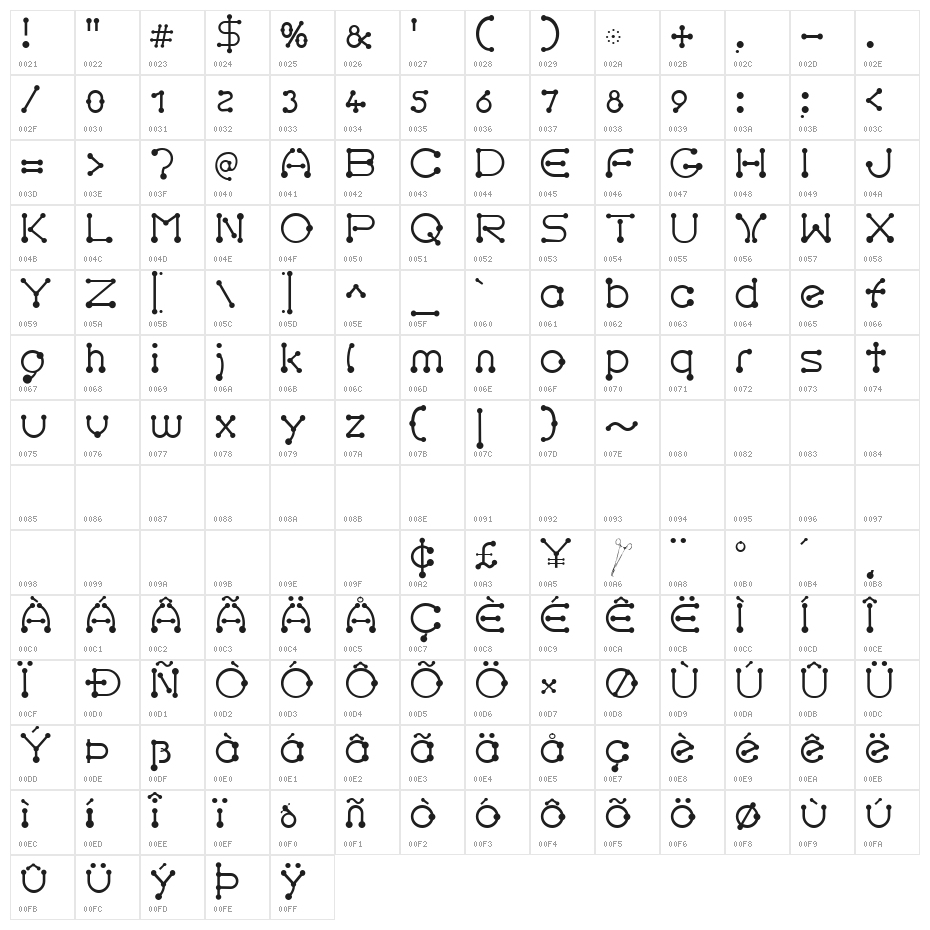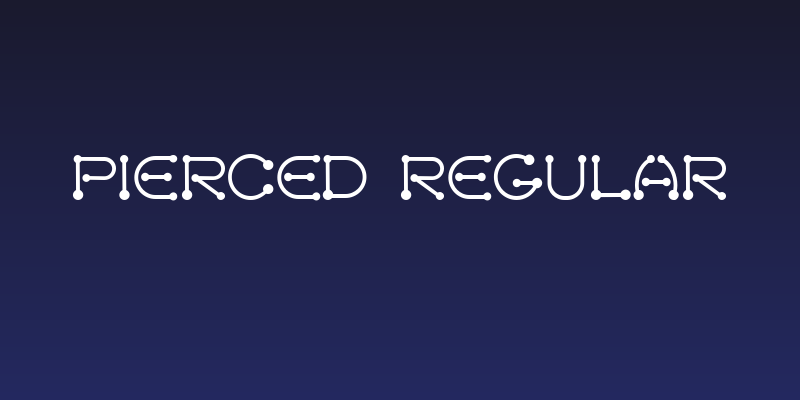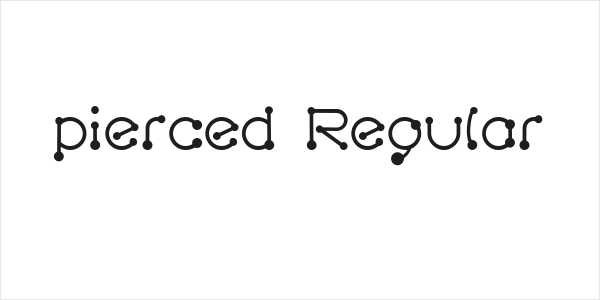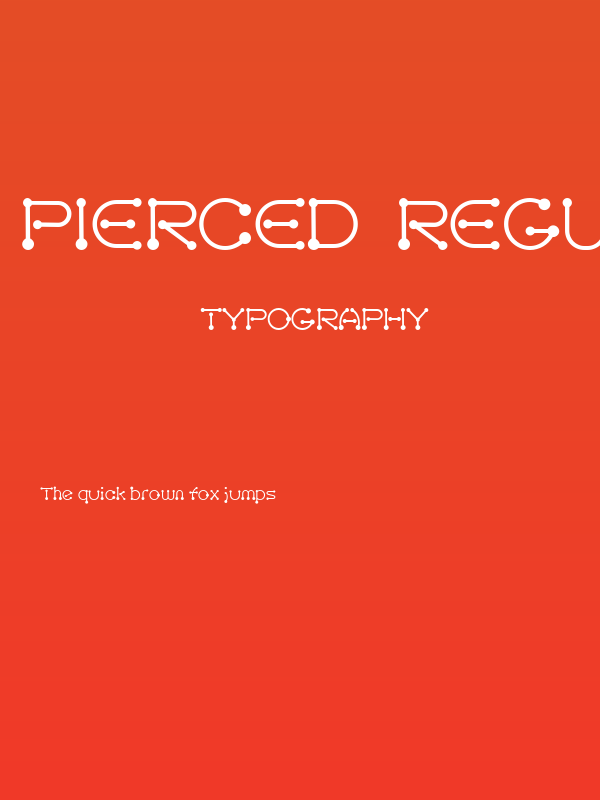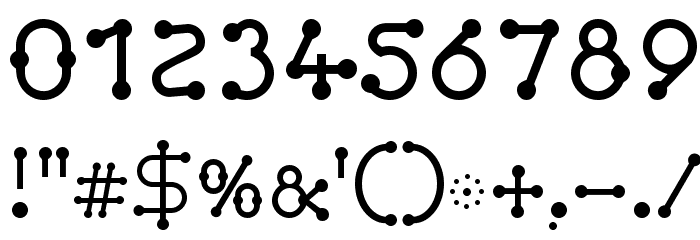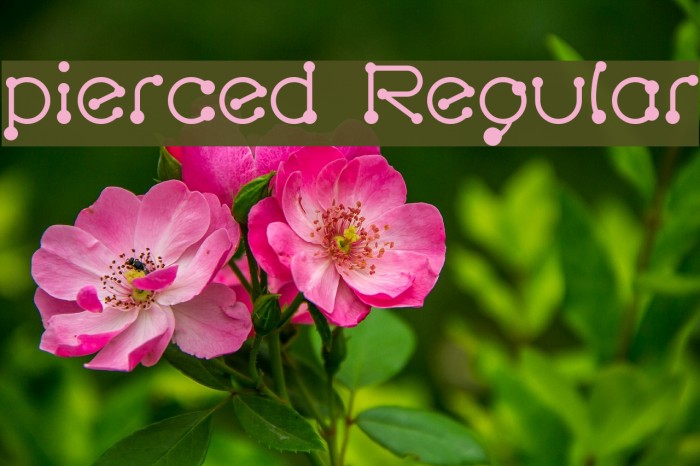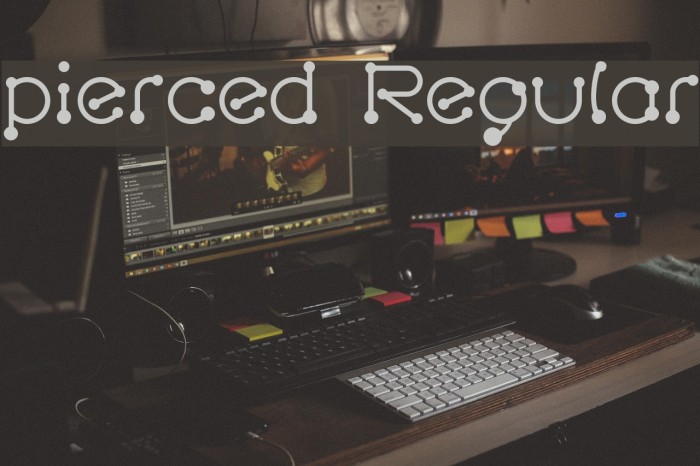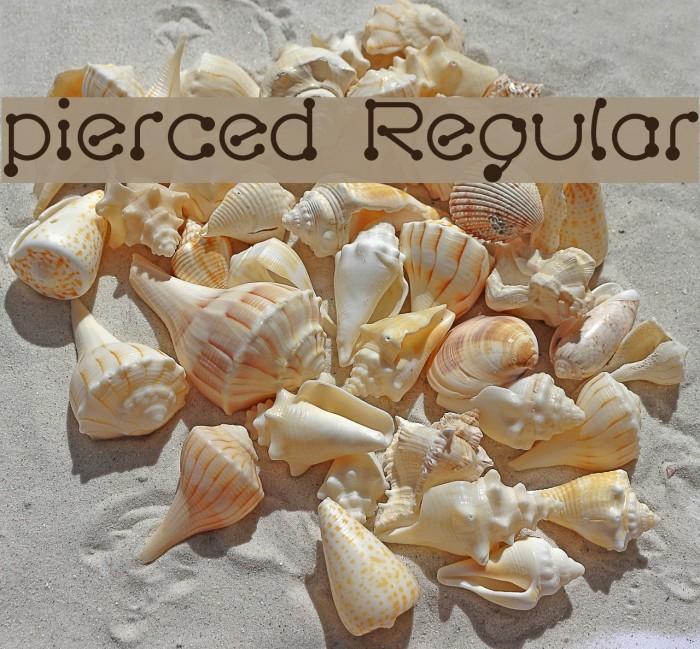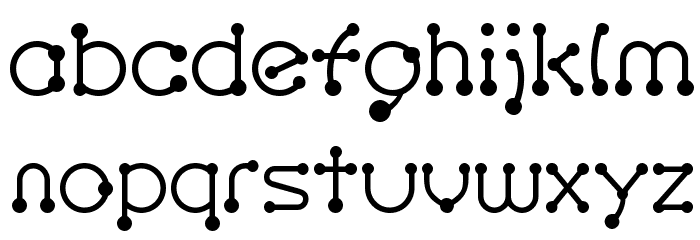
pierced Regular Font
pierced Regular Description
This font features a unique design where each character is composed of lines connected by circular nodes, giving it a distinct, modern, and somewhat playful appearance. The geometric structure is consistent across uppercase, lowercase, and numerical characters, creating a cohesive look. The circular nodes add a decorative element that makes the font stand out, while the lines maintain a clean and readable form. This style is particularly eye-catching and can be used to draw attention in various design contexts.
| Proposed Projects | Ideal for creative projects such as posters, logos, and branding materials where a modern and unique look is desired. |